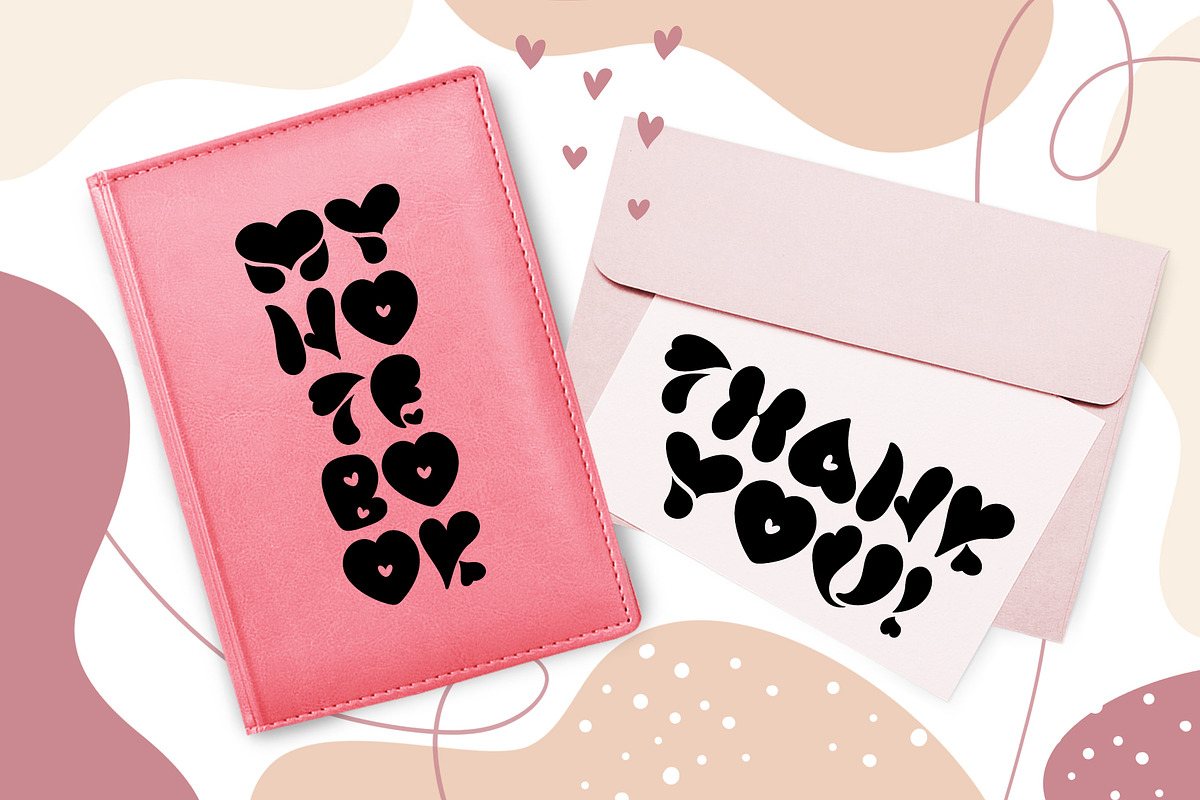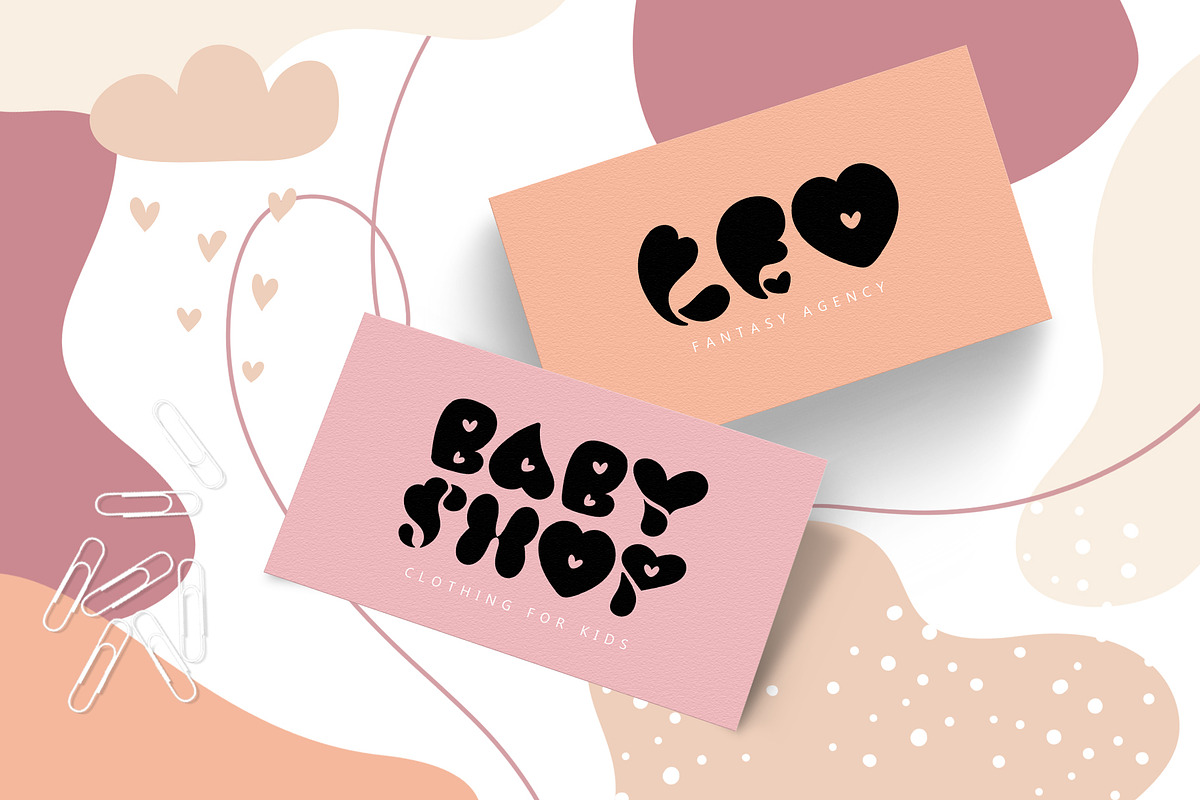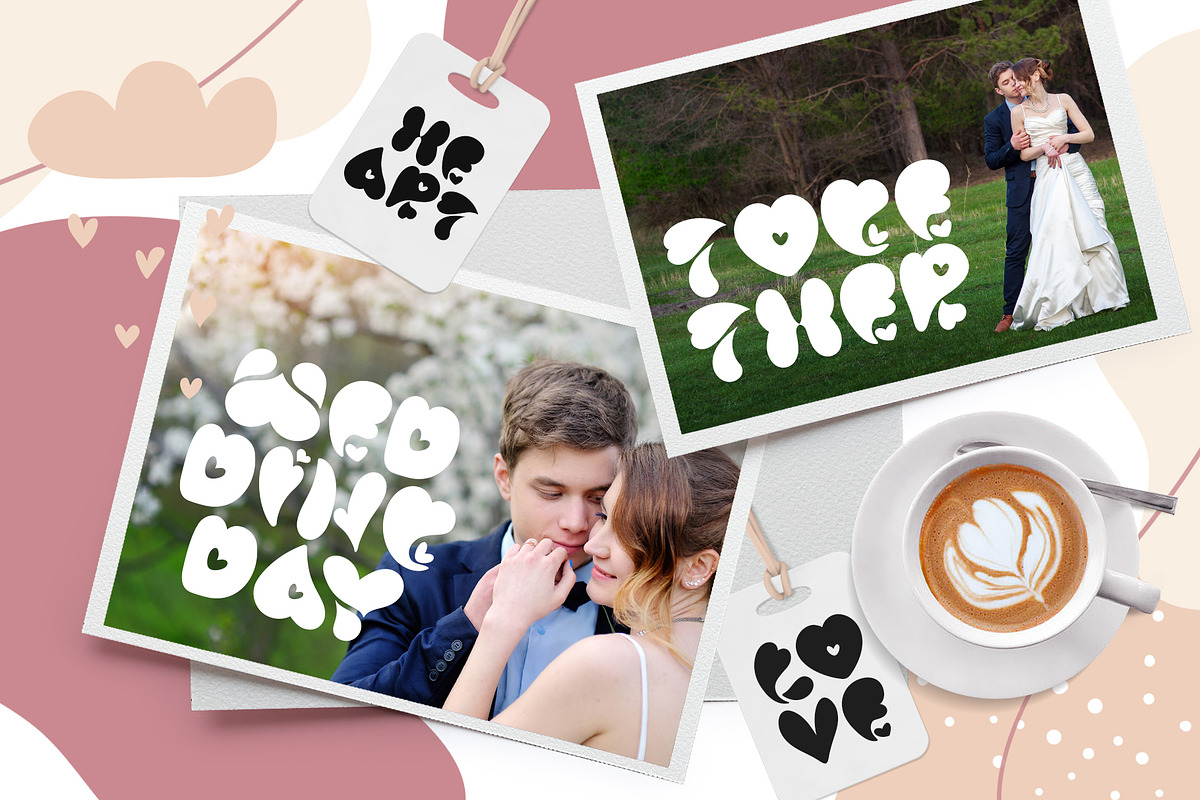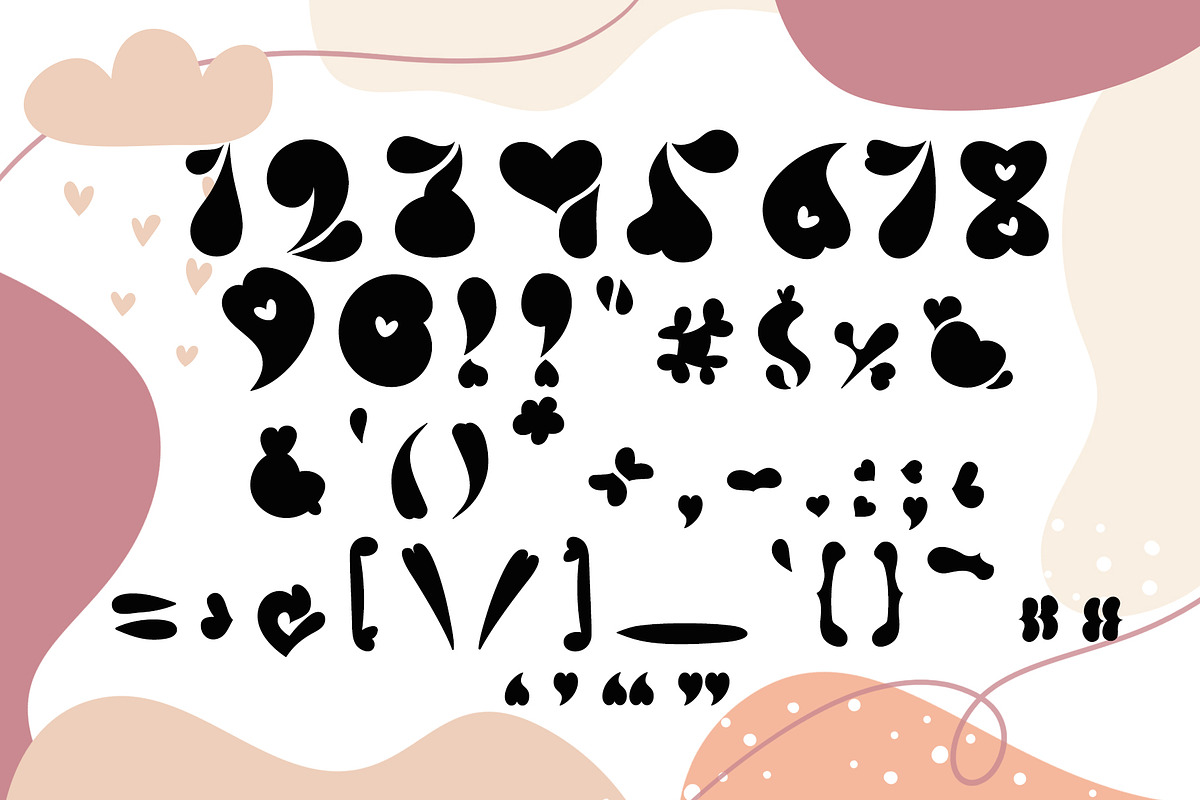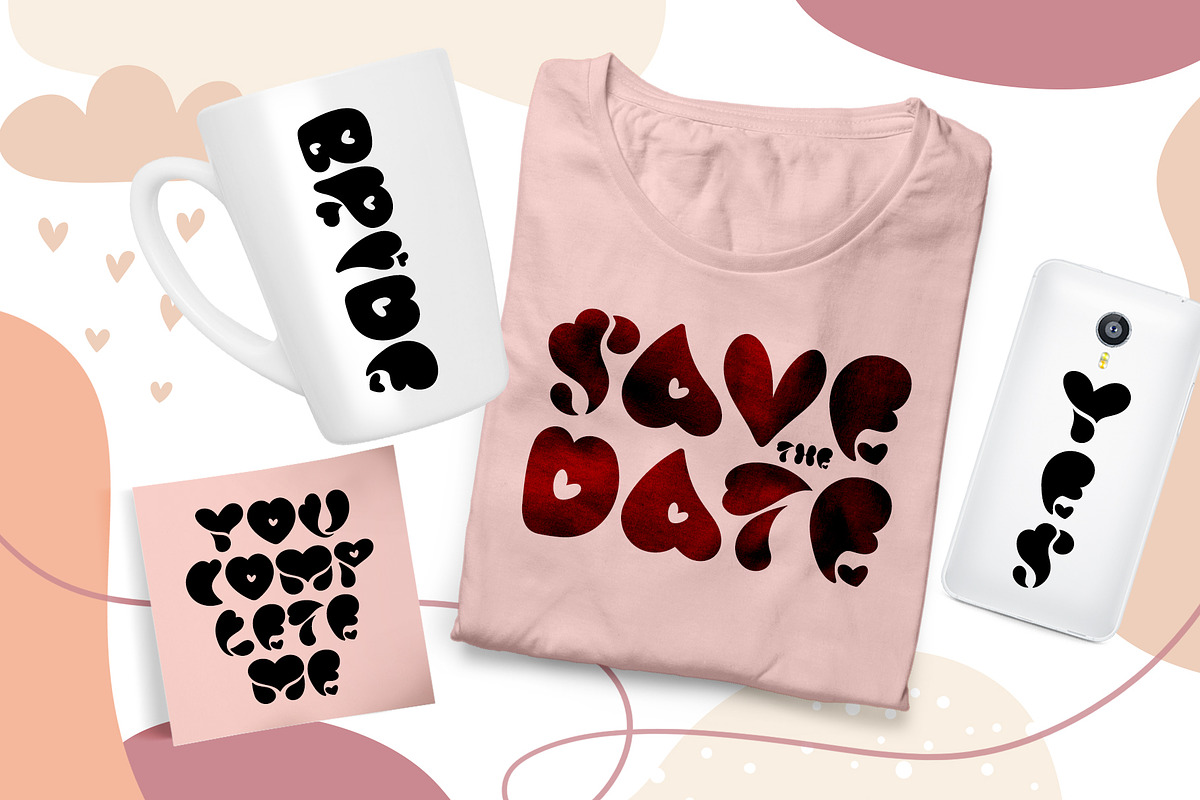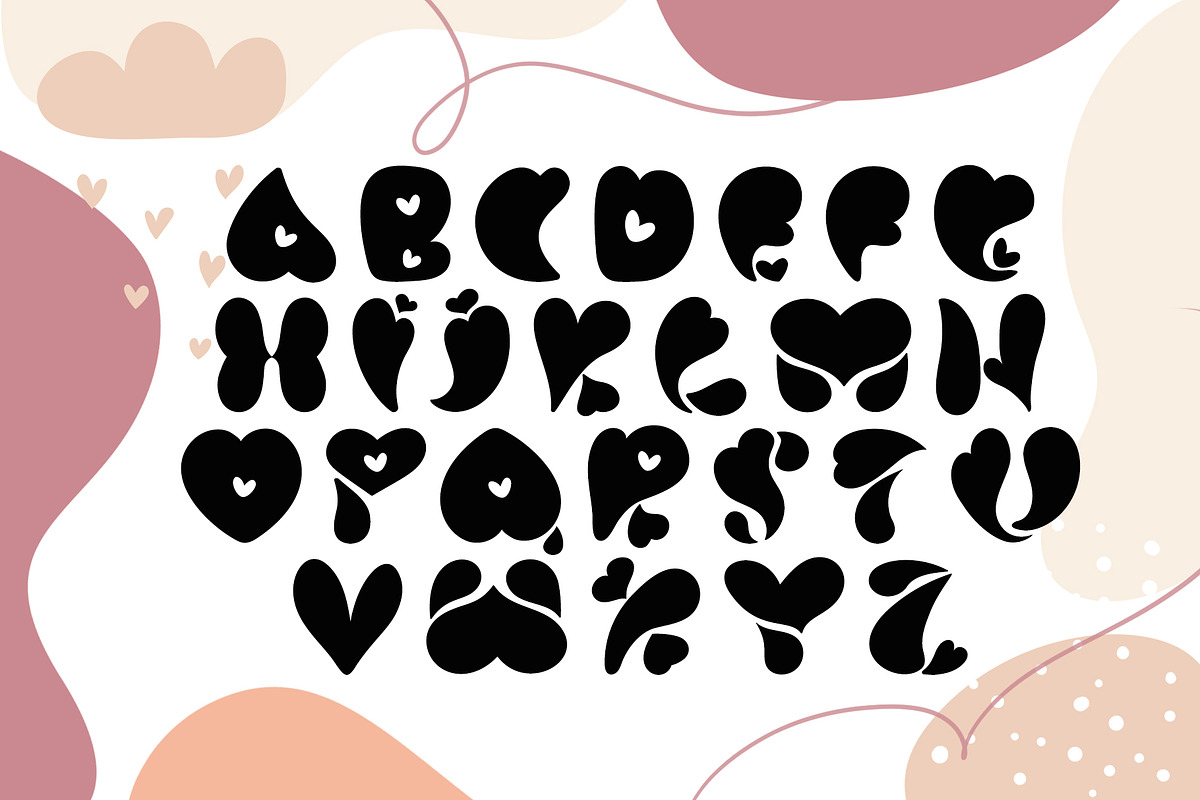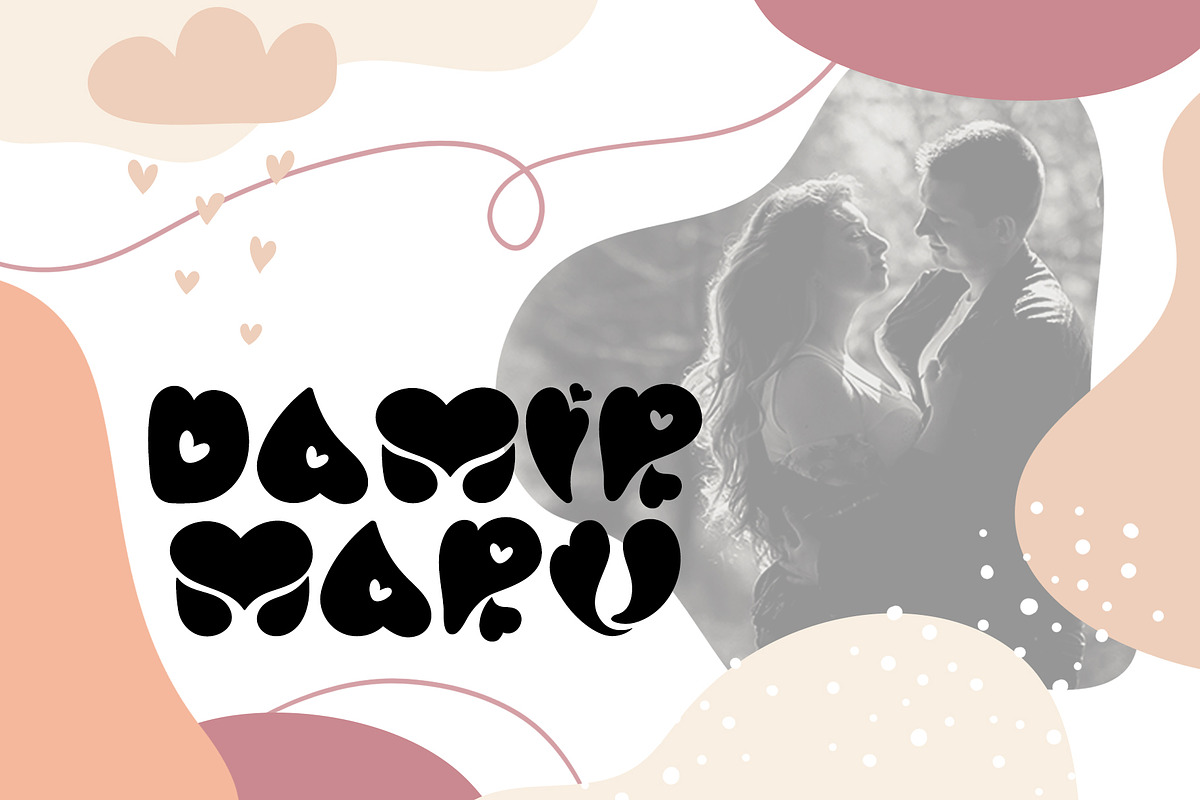
Love You Hand Drawn Font
Love You Hand Drawn Valentine Font includes unique letters in form of heart for wedding or Valentines greeting cards, logo, invitations, etc. Elegant calligraphic lines give romantic freshness to your handmade design.
In this font CAPITAL and lowercase letters are same. Therefore, you can use capital or lowercase letters.
Decorate your albums, wedding and holiday greeting cards (Christmas, Birthday, Valentine's Day, Mothers Day and other holidays), logos, gift shops, tag, social media, Instagram, Facebook, internet shops presentation.
Love You Hand Drawn Font by Happy Letters fits naturally into Branding, posters, packaging, typography.